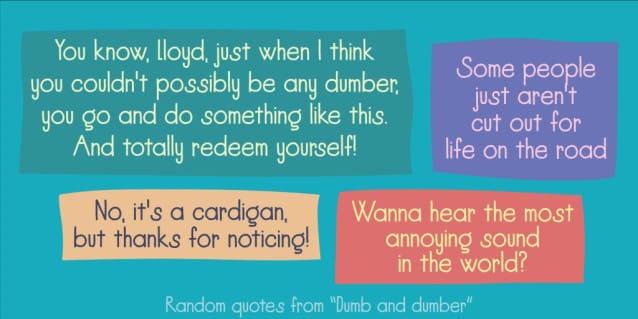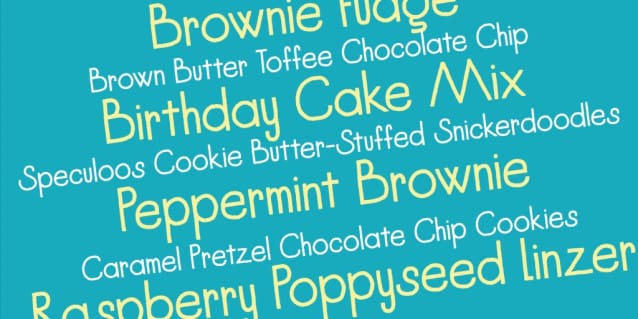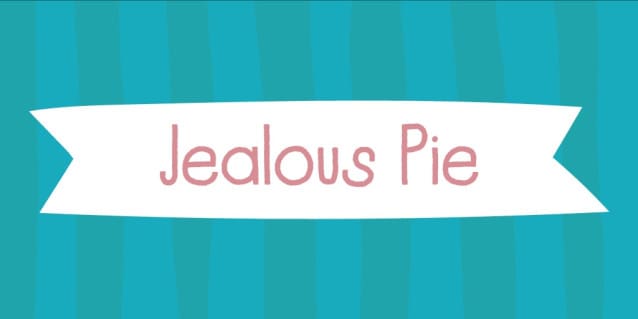
Jealous Pie Font
Jealous Pie font has a slightly rough look Retro, art deco, raw, organic, vibrant and handmade! – maybe packaging, posters, toys, book covers or invitations.